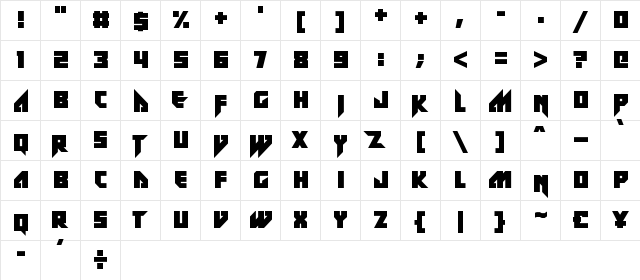
ZeF RAVE Regular
Design Context for ZeF RAVE Typeface
ZeF RAVE is a composed and adaptable typeface that performs quietly and consistently across a wide range of design contexts.